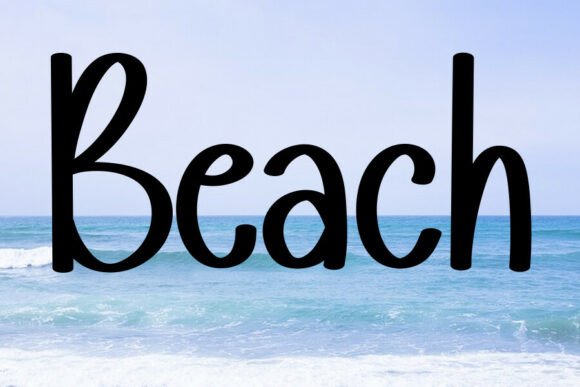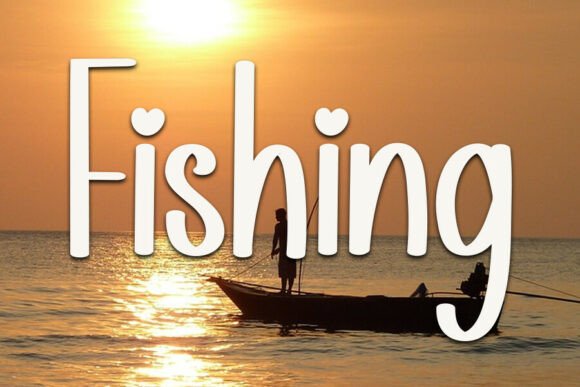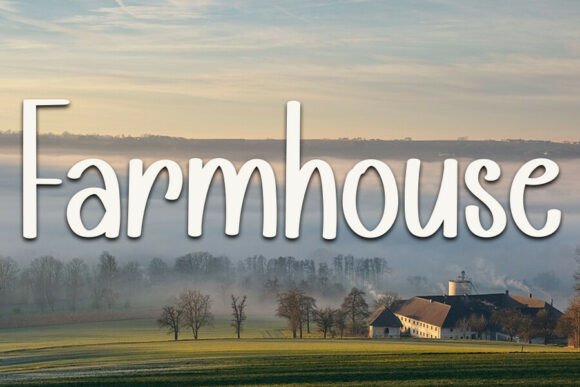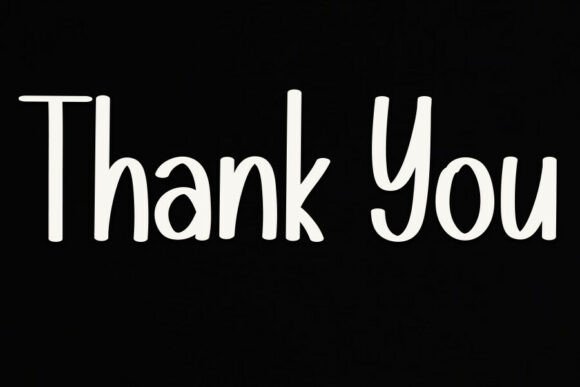
The Perfect Canvas for Creativity: Unlocking the Beauty of Bedroom Font
Remember that moment when you first laid eyes on a beautiful hand-painted sign in a boutique or a vintage store? The way the delicate brushstrokes danced across the surface, creating a sense of elegance and whimsy? That’s the magic of Bedroom Font – a stylish script font that captures the essence of hand-painted calligraphy with a modern twist.
Designed to add a touch of sophistication and creativity to your designs, Bedroom Font is perfect for logos, invitations, packaging, and social media graphics. With its fluid brush strokes, dynamic curves, and expressive letterforms, this font delivers both visual impact and versatility, making it a valuable asset for designers looking to elevate their work.
Whether you’re a seasoned pro or just starting out, Bedroom Font is an excellent choice for anyone looking to add a unique and artistic touch to their designs. Its natural flow and vibrant character make it an ideal tool for expressing your creativity and bringing your vision to life.
Bedroom Font Key Features
- Font Family: Bedroom Font is a sans-serif font family.
- Font Size: Available in 6 weights, ranging from Light (100) to Black (900).
- Resolution: Optimized for use at resolutions of 72 dpi and 96 dpi.
- Unique Characteristics: Designed with a relaxed, casual feel, perfect for use in bedroom-themed designs, such as bedding labels, pillowcases, and other home decor items.
- Language Support: Supports a wide range of languages, including Latin, Greek, and Cyrillic scripts.
Bedroom Font Review
As a designer, I was excited to dive into the “Bedroom Font” and see what it had to offer. Here’s my honest review.
- Creamy, dreamy feel: The font’s warm and inviting aesthetic is perfect for a bedroom setting.
- Soft, flowing lines: The letterforms are smooth and gentle, making it a great choice for text-heavy designs.
- Highly legible: Despite its soft appearance, the font remains highly readable, even at smaller sizes.
- Limited versatility: The font’s warm and inviting feel might not be suitable for all design projects, such as tech or sports branding.
- Lack of bold weights: The font’s bold weights are not as robust as I’d like, which might limit its use in headlines and titles.
- No italics: Unfortunately, the font does not include italic versions, which could be a problem for designs that require emphasis.
While the “Bedroom Font” excels in its intended niche, its limitations might prevent it from being a go-to choice for more versatile design projects. However, for bedroom-themed designs, weddings, or other romantic projects, it’s a great option.
- Use it sparingly to add a touch of elegance to your designs.
- Pair it with a clean and simple background to let the font shine.
The Bedroom Font is perfect for:
- Home decor and furniture labels.
- Personalized gifts and stationery